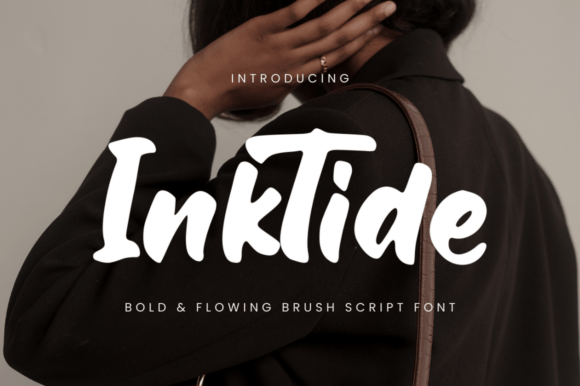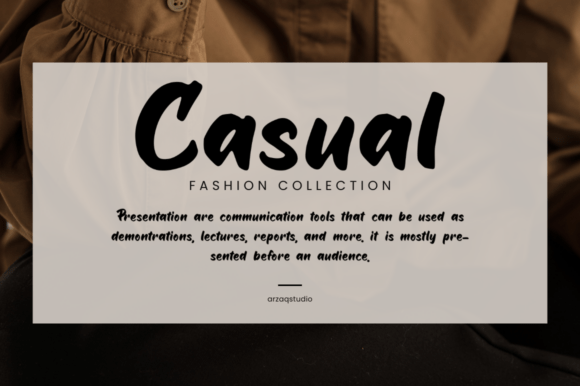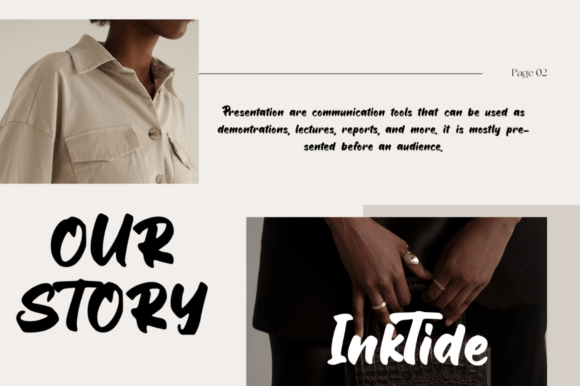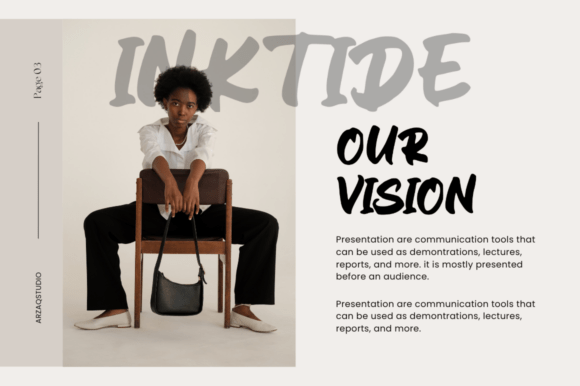
InkTide Font: Bold Brush Script for Modern Branding & Poster Design
About the Inktide Font
Introducing the Inktide Font, a beautifully crafted typeface designed to elevate your creative projects. InkTide is a dynamic brush script font with bold, fluid strokes that mimic hand-painted lettering. Its energetic style is perfect for posters, apparel, branding, headlines, and any design that needs a punch of personality and motion. InkTide brings a modern, artistic flair to your creative projects.
InkTide’s bold energy makes it ideal for headlines, logos, short taglines, and packaging design where a strong visual impact is desired. It works exceptionally well for brands targeting younger demographics or those with a vibrant, creative image. Avoid using InkTide for lengthy body text or UI elements; its fluid strokes can hinder readability in smaller sizes or continuous blocks of text.
Pair InkTide with a clean sans-serif like Open Sans for a modern contrast, or a classic serif such as Garamond for a touch of sophistication. For a more playful aesthetic, consider pairing it with a geometric sans-serif like Futura. These pairings provide balance and legibility, allowing InkTide’s expressive strokes to shine without overwhelming the design.
The font exudes a modern, energetic personality, best suited for projects that demand attention and convey a sense of movement and dynamism. Think bold branding for clothing lines, music festivals, or art exhibitions.
Inktide Font Usage Examples
Inktide Font Example